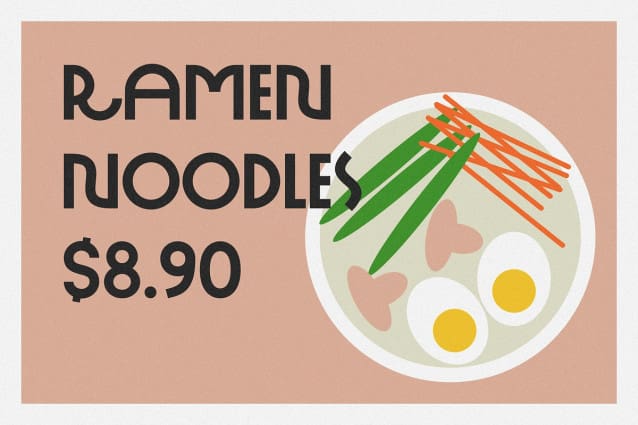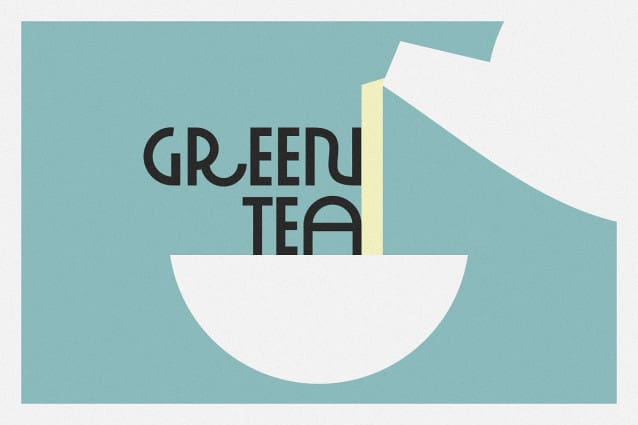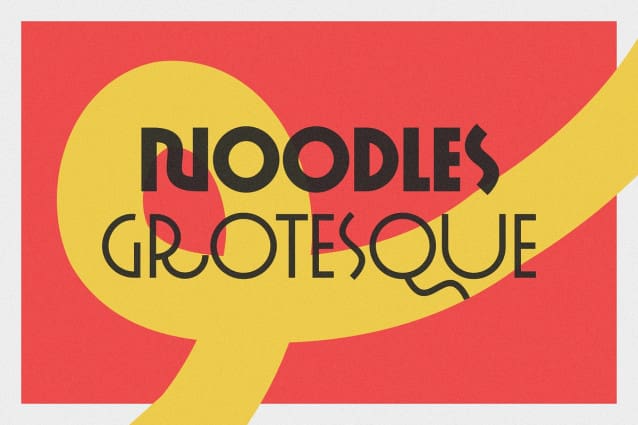
Noodles Grotesque Regular Font
Noodles Grotesque Regular Font – Noodles Grotesque Font, this font comes in 7 static weights and as a variable font. Suitable for any design needs : logo, branding, modern advertising design, logos, poster quote, book / cover Title, editorial design, website / blog, card, t-shirts,…